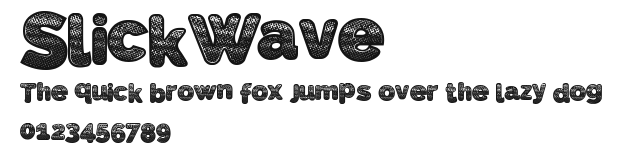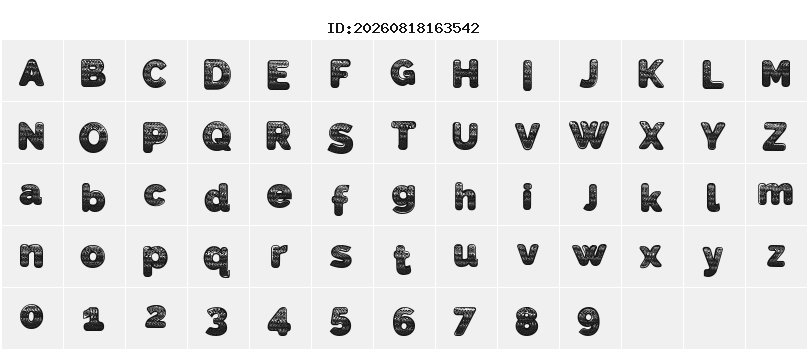
• Font Name: SlickWave
• Full Font Name: SlickWave
• Designer: Xerographer Fonts Max Infeld
• Manufacturer: Xerographer Fonts
• Description: Made at Xerographer Studios in Ojai,CA
About SlickWave.ttf
SlickWave.ttf is a modern, elegant sans-serif font designed for ultimate readability and visual harmony. Perfect for branding, headlines, web design, and print materials.